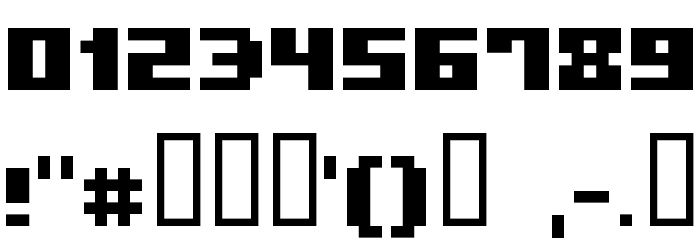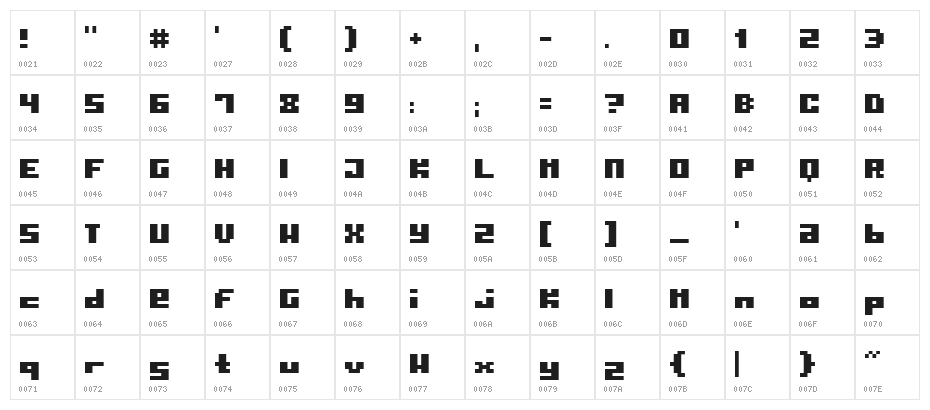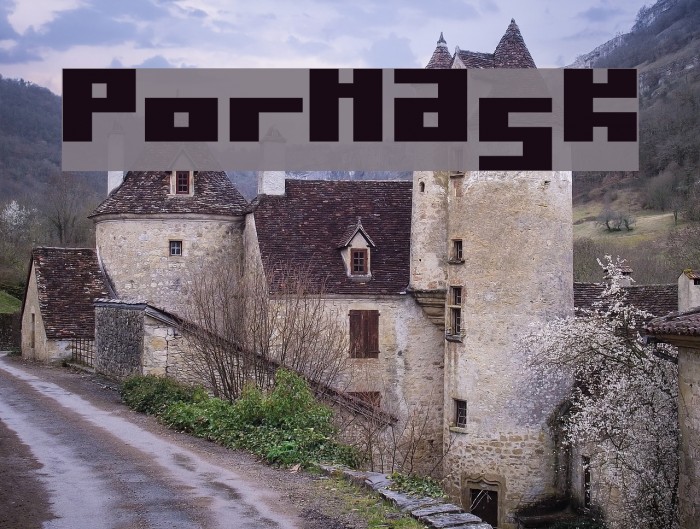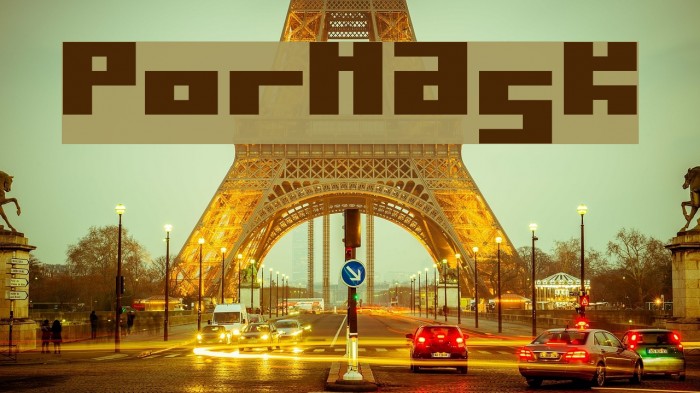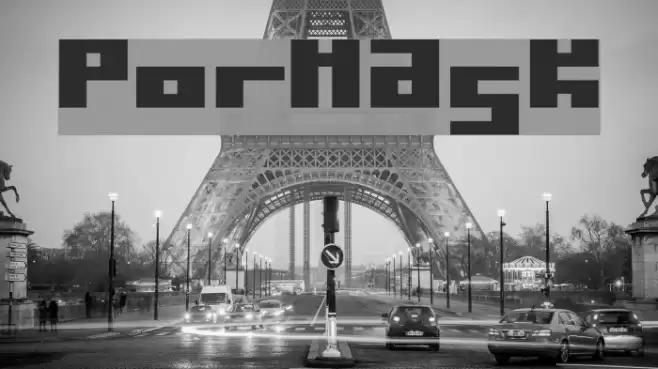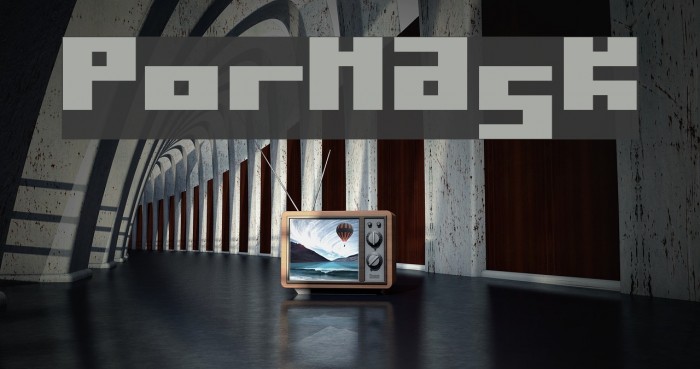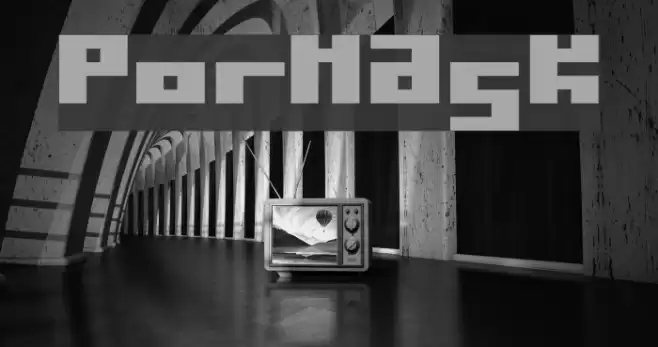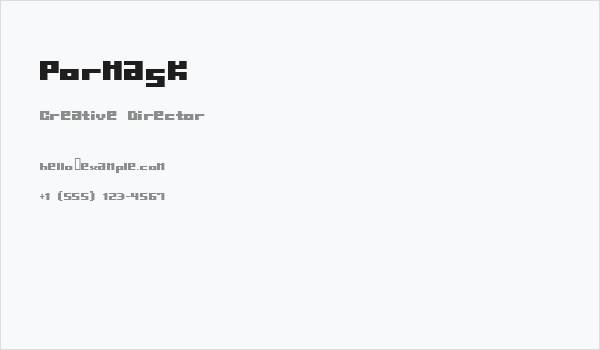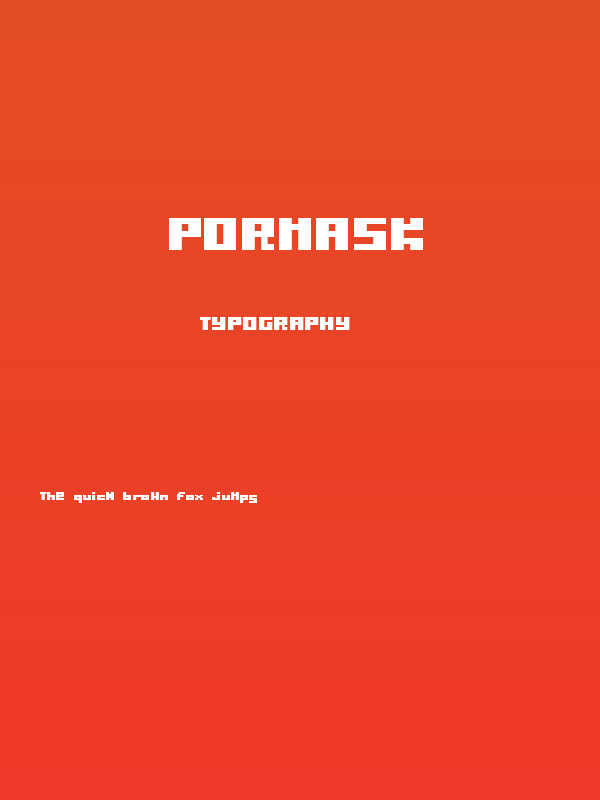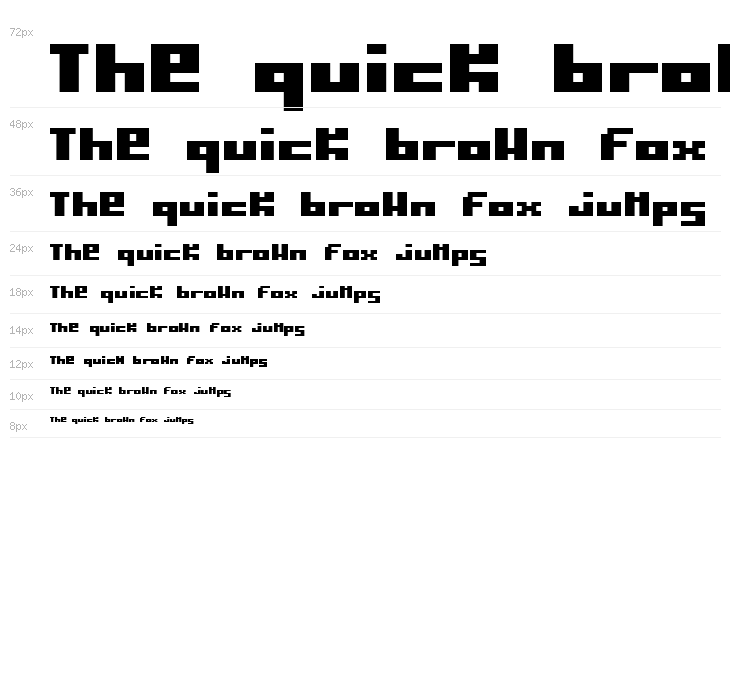
Pormask Font
Pormask Description
This font features a bold, blocky design with a distinctly geometric and pixelated aesthetic. The characters are uniformly structured, with sharp angles and straight lines, giving it a digital, retro feel reminiscent of early video game graphics. The uppercase and lowercase letters maintain a consistent height, contributing to its monospaced appearance. The numerals and special characters follow the same design principles, ensuring uniformity across all glyphs. This font's strong visual impact makes it ideal for attention-grabbing headlines or digital-themed projects.
| Proposed Projects | Ideal for video game graphics, retro-themed posters, digital art projects, and tech-related branding. |